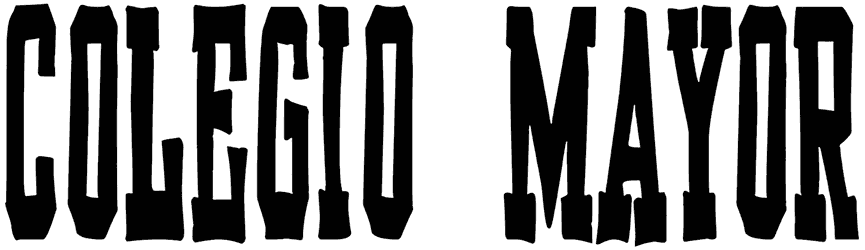
Colegio Mayor Font
Colegio Mayor font has that old academic signboard energy where the letters feel disciplined, formal, and full of institutional character. Its serif style brings a schoolhouse-meets-heritage mood, perfect for designs that need tradition without becoming completely stiff. You can almost see it printed on a certificate, stamped on a campus poster, or carved above a library door with too much confidence.
Graduation invitations, university club logos, history posters, book covers, debate event flyers, and vintage stationery can all use Colegio Mayor font beautifully. Try deep navy, cream paper, gold accents, or subtle ink texture, and the whole layout starts feeling properly educated.
Colegio Mayor.